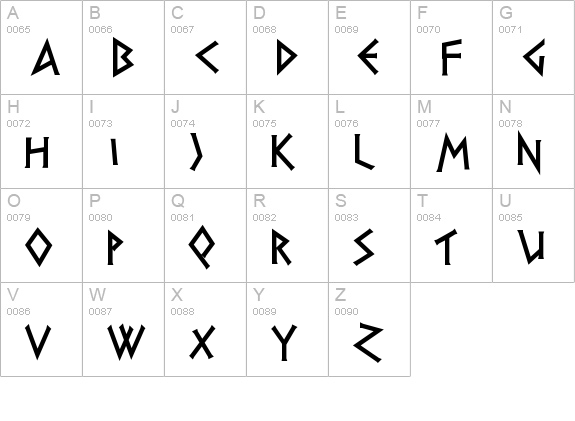
Herakles Font Details
Introducing Herakles font, a stunning typeface that exudes strength and elegance. With its bold strokes and unique design, Herakles is perfect for making a statement in your designs. This versatile font is suitable for a wide range of projects, from branding to editorial design. What sets Herakles font apart is not only its striking appearance but also the fact that it is completely free to download. Yes, you heard that right! You can get your hands on this exceptional font at no cost at FontsMarket.com. So why wait? Give your projects a touch of sophistication with Herakles font today!